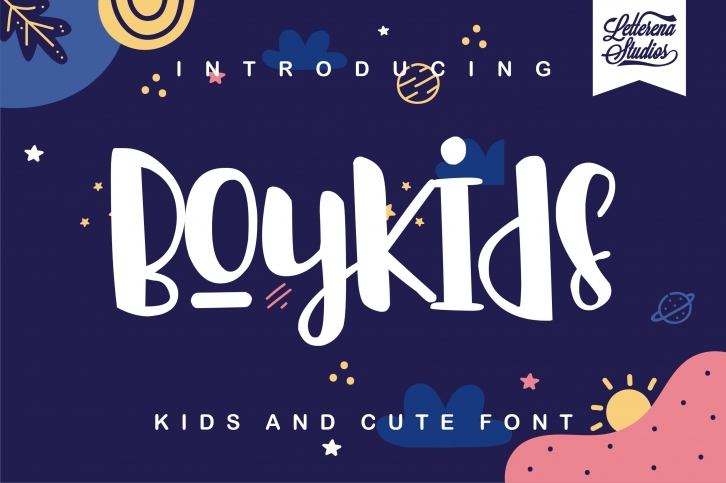
Boykidsu00a0- Kids And Cute is a great font that was designed by Letterena Studios. Imagine the amount of combinations you can create using this font! The archive is 1.43 MB and it was released on October 10, 2020. Boykidsu00a0- Kids And Cute looks beautiful on wedding invitations, greeting cards, logos, posters, labels, t-shirt designs, logos, business cards and is perfect for use in ink or watercolor works, fashion, magazines, packaging and food menus, children's books and more!